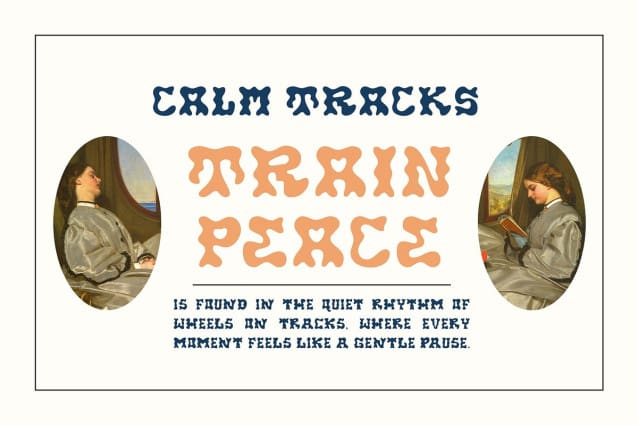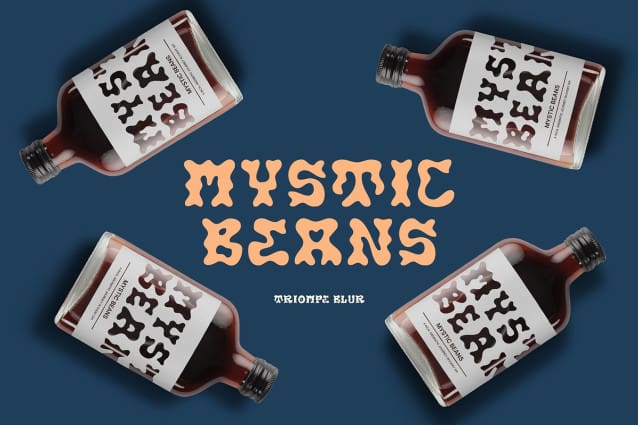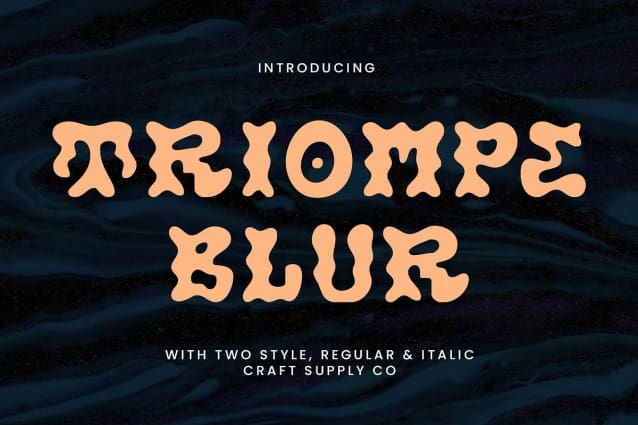
Triompe Blur Font
Triompe Blur Font is a modern display font featuring bold, fluid shapes that exude a funky, cheerful vibe. Its unique, distorted letterforms evoke creativity and playfulness, making it ideal for designs that need a fresh, experimental flair. The psychedelic design brings a sense of energy and freedom, capturing the essence of dynamic, artistic expression.
Dynamic Blur Effect Enhancing Playful Creativity The blur effect adds an intriguing, soft-focused quality, enhancing the whimsical and surreal feel of the font. It combines a sense of motion with visual interest, making each letterform appear to dance on the page. This unique blend of fluid shapes and dynamic focus delivers a modern.
Perfect for Music, Experimental Branding, and More Triompe Blur shines in projects that require a fun, experimental aesthetic. Perfect for music posters, branding for creative ventures, and any design that seeks to communicate an energetic, playful mood. Whether for vibrant event posters, album covers, or contemporary advertising, this font brings boldness and originality to your visual projects.
Energetic, Fun, and Original Typography Triompe Blur is the perfect choice for designs that aim to stand out with joy and creativity. Its fluid letterforms and psychedelic influence create a truly unique visual language, perfect for capturing a fun and energetic atmosphere in any project.